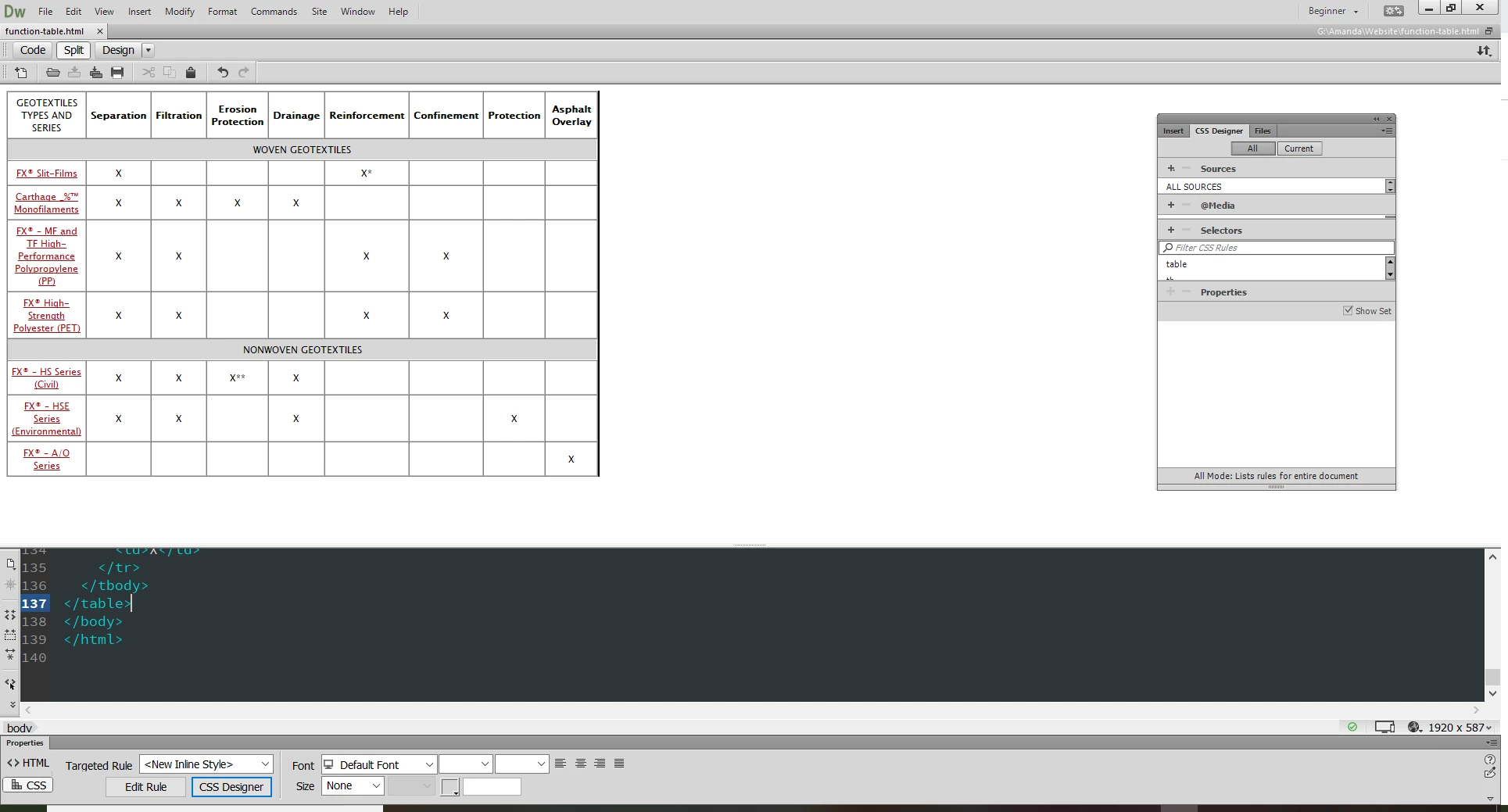
Why Fonts look different?
Why do the fonts look different in the top row between the first column on the left and the rest of them to the right? I want them all to look like the one top left.
The browser default for <th> adds a heavier weight to the text than it does for <td> tags.
If you add a style like...
th {
font-weight:normal;
}
to your stylesheet, it should fix what you're seeing.